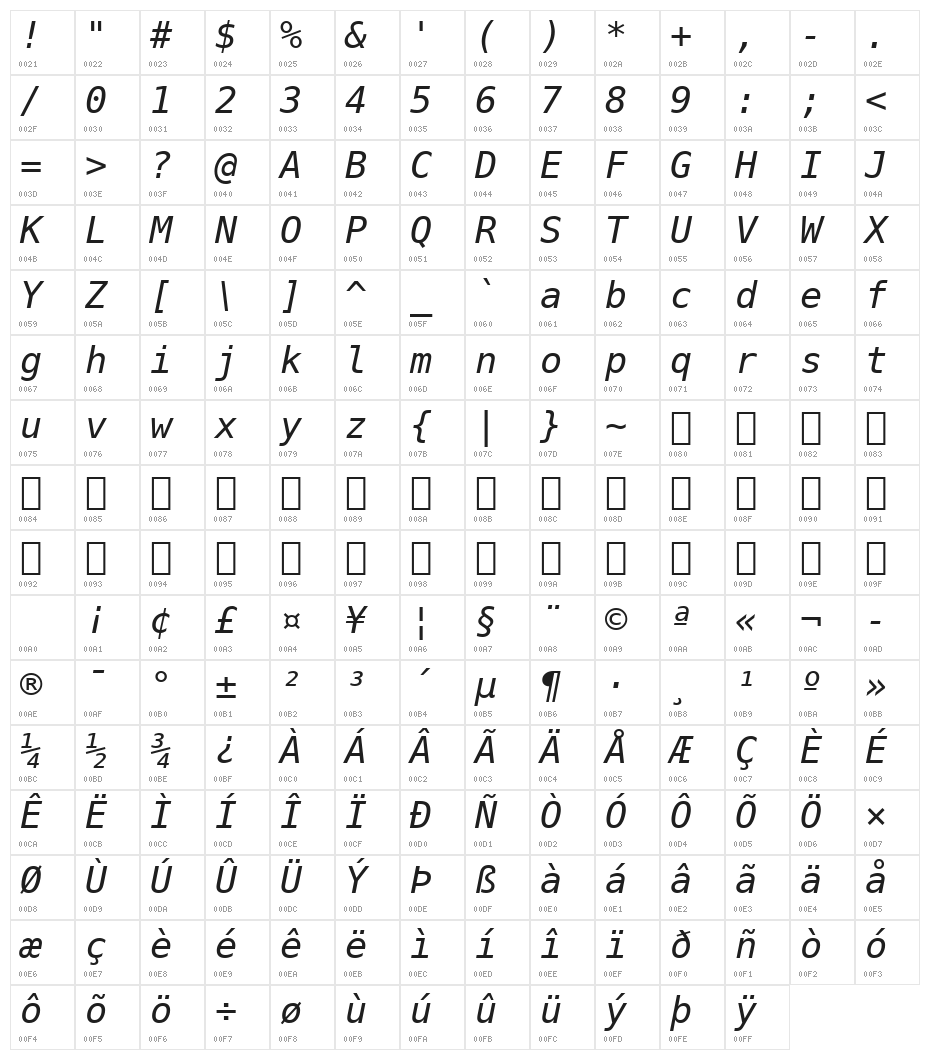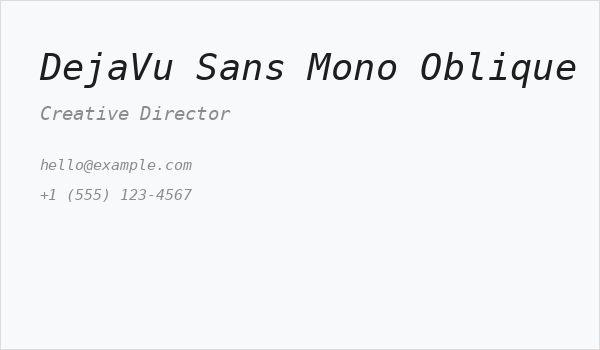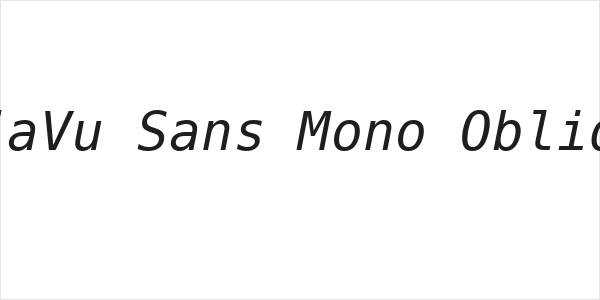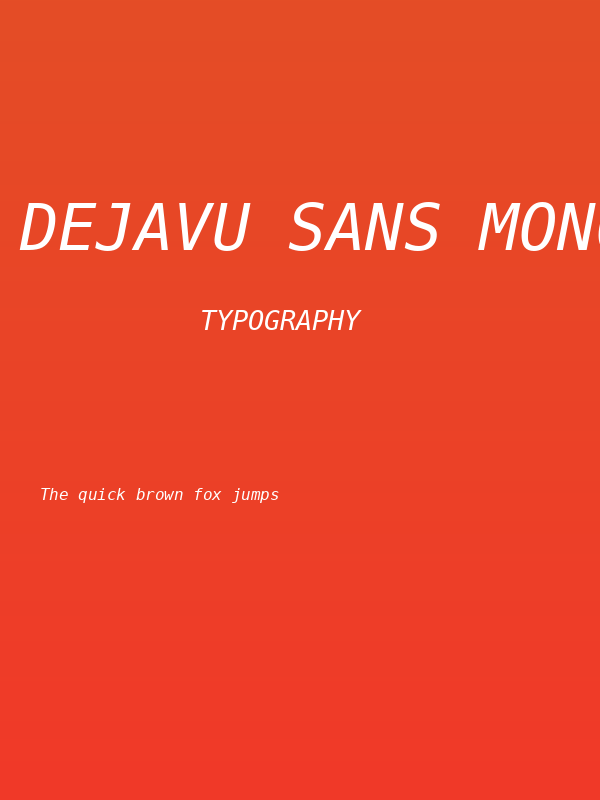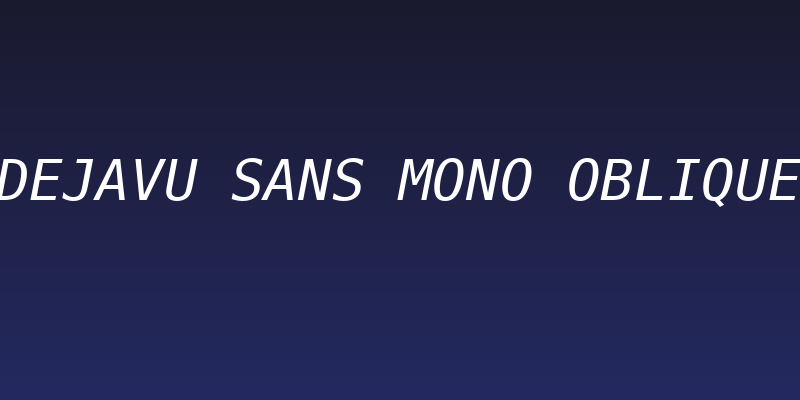
DejaVu Sans Mono Oblique Font
DejaVu Sans Mono Oblique Description
This font is a monospaced typeface with a clean and modern appearance. Each character is uniformly spaced, providing a consistent and organized look. The oblique style adds a slight slant to the characters, giving it a dynamic and contemporary feel. The design is straightforward, making it highly readable and suitable for coding and technical documentation. The characters are well-defined with a medium stroke contrast, ensuring clarity and legibility across various sizes and resolutions. The font includes a full set of uppercase and lowercase letters, numerals, and a variety of special characters, making it versatile for different applications.
| Use Case | Coding, Technical documentation |
| Proposed Projects | Ideal for coding environments, technical documentation, and any project requiring clear, monospaced text. |